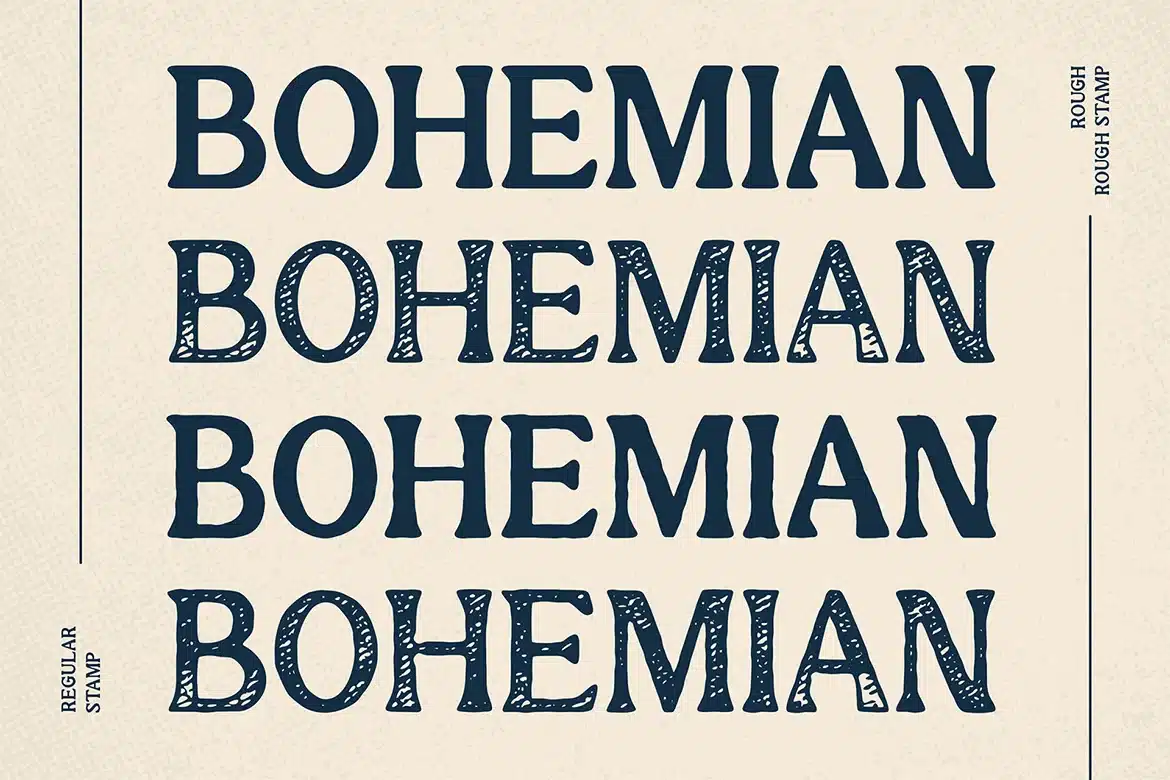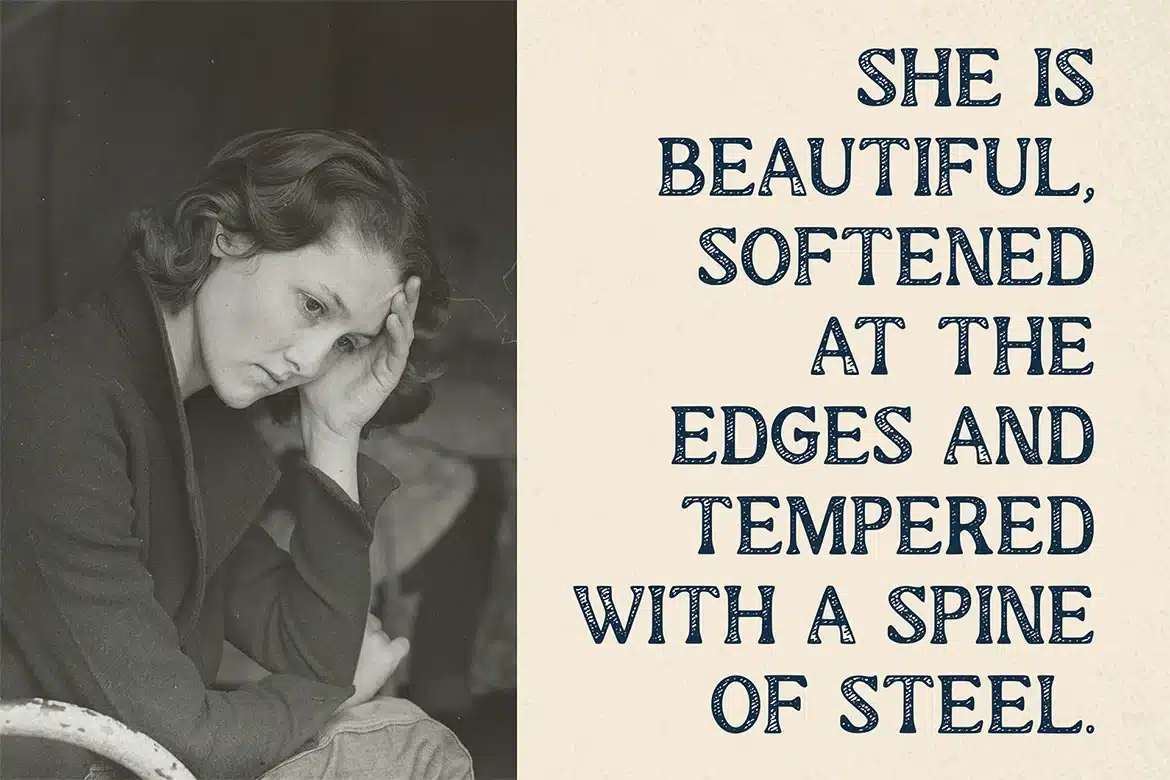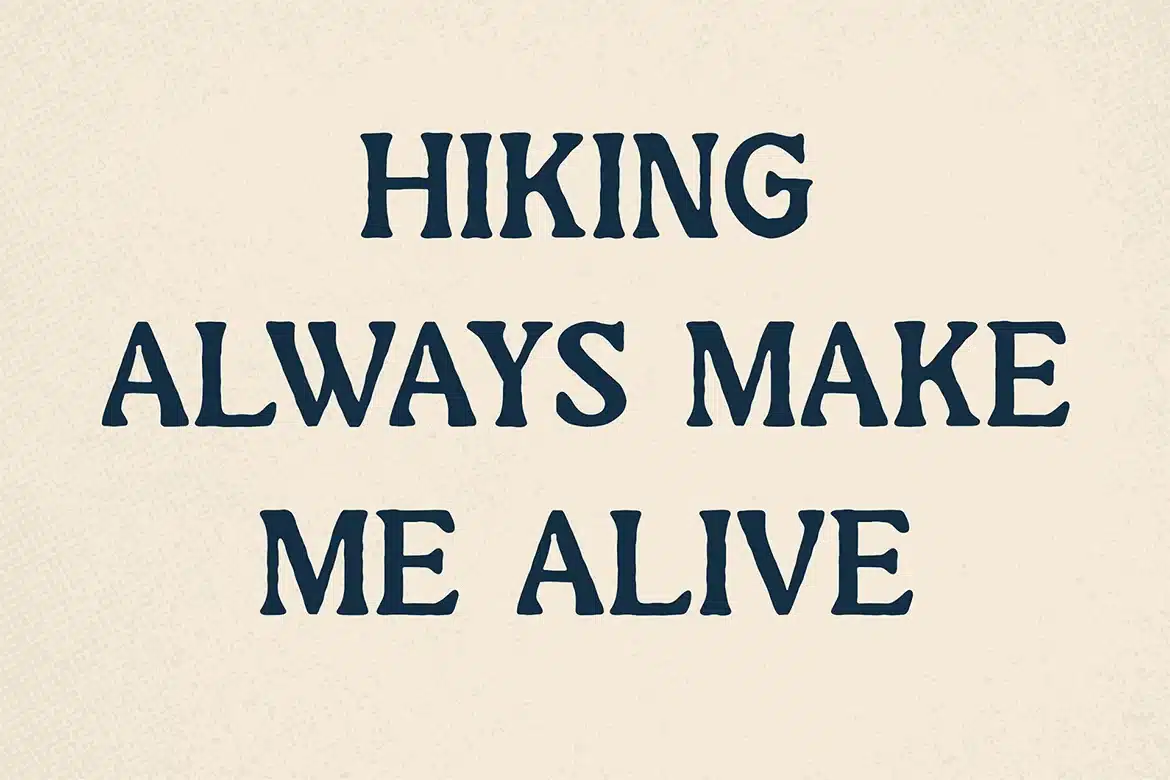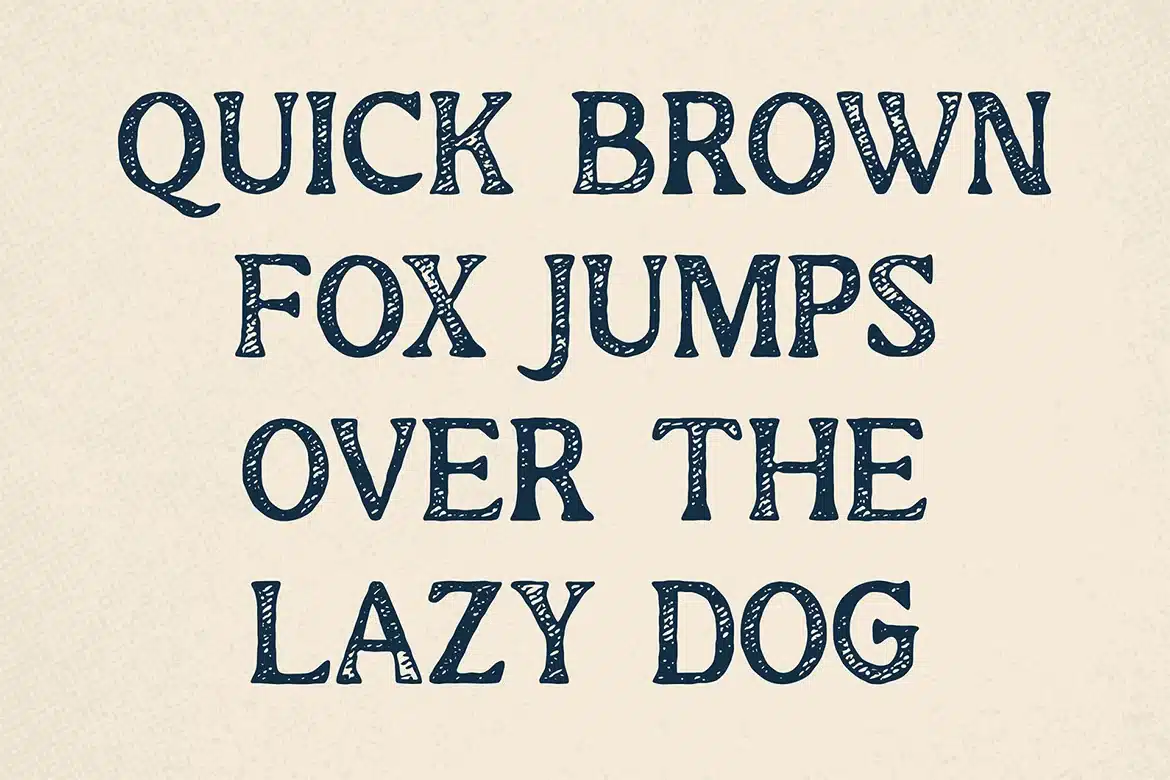
Milagros – Vintage serif Font
Milagros font is a vintage display font, This font I created is meaningful & very versatile, it goes well with various designs, elevating them to the highest level. Add this font to your favorite creative ideas and see how it comes to life!
- Features : All Caps, Numerical, & Multilingual Support
- 4 Font style : Regular, Rough, Stamp, Rough Stamp